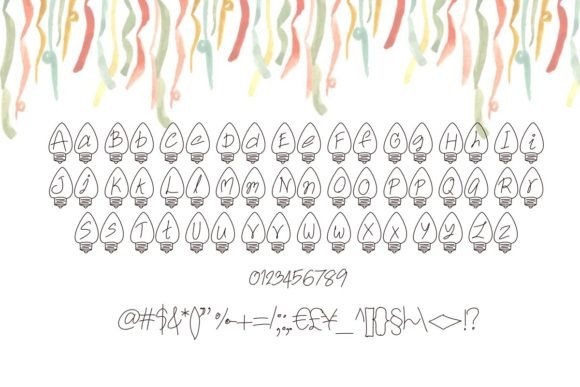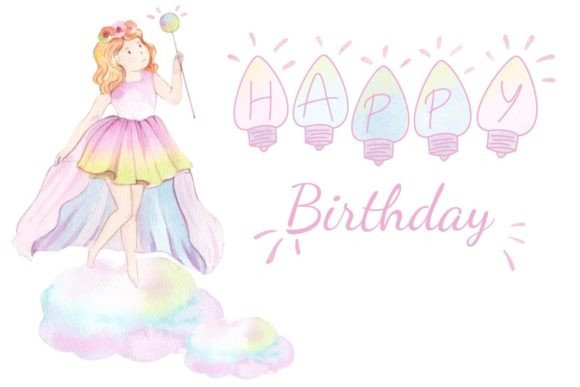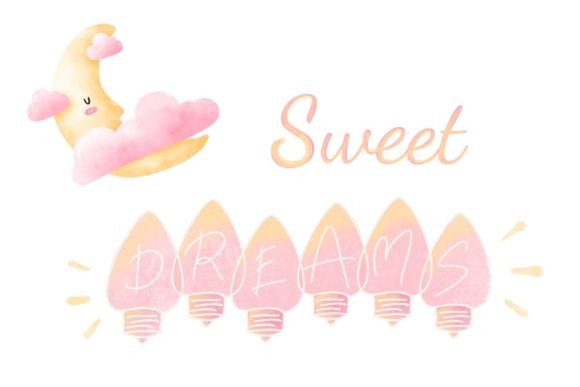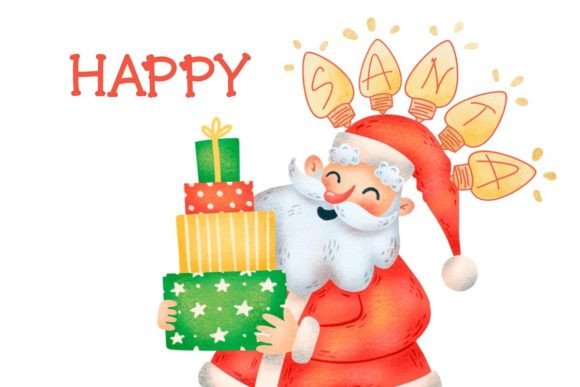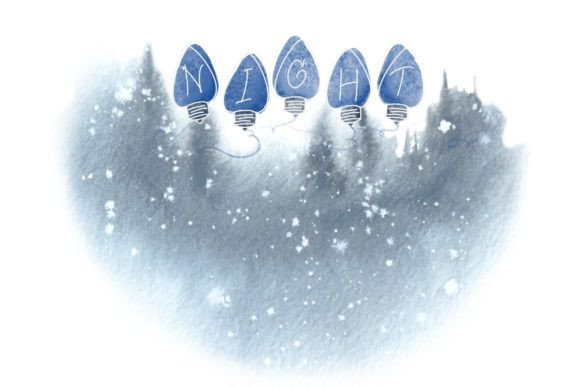
Illuminate Your Designs with Christmas Light Font
Are you looking for a font that adds a touch of festive magic to your designs? Look no further than the Christmas Light Font! This decorative font is perfect for creating visually stunning and engaging content for various creative projects. In this article, we’ll explore the features and benefits of Christmas Light Font and how it can elevate your designs.
What is Christmas Light Font?
Christmas Light Font is a unique and decorative font designed to bring a festive touch to your designs. Its playful and whimsical style makes it ideal for creating Christmas-themed content, but it’s also versatile enough to be used for other celebrations and designs throughout the year.
Features of Christmas Light Font
- Decorative and Festive: Christmas Light Font features a decorative and festive style that’s perfect for creating Christmas-themed designs, such as holiday cards, posters, and social media graphics.
- Versatile: This font is not limited to Christmas designs. Its playful and whimsical style makes it suitable for various creative projects, including wedding invitations, business cards, and children’s designs.
Use Cases for Christmas Light Font
Christmas Light Font is a versatile font that can be used for a wide range of creative projects, including:
- Logos and Branding: Add a festive touch to your logo and branding materials, such as business cards and letterheads.
- Wedding Invitations: Create beautiful and unique wedding invitations that set the tone for a festive and memorable celebration.
- Children’s Designs: Bring joy and excitement to children’s designs, such as coloring books, activity sheets, and educational materials.
- T-Shirts and Mugs: Create fun and festive designs for t-shirts, mugs, and other merchandise.
- Posters and Magazines: Add a touch of whimsy and playfulness to your posters, magazines, and other print materials.
- Social Media: Create engaging and festive social media graphics that stand out from the crowd.
- Planner Prints: Add a decorative touch to your planner prints, journals, and other stationery.
- Websites: Use Christmas Light Font to create festive and engaging website content, such as holiday-themed banners and graphics.
Benefits of Using Christmas Light Font
Using Christmas Light Font can bring several benefits to your designs, including:
- Unique and Festive Touch: Christmas Light Font adds a unique and festive touch to your designs, making them stand out from the crowd.
- Versatility: This font is versatile and can be used for various creative projects, making it a great addition to your font library.
- Easy to Read: Despite its decorative style, Christmas Light Font is easy to read, making it suitable for body text and headlines.
Tips for Using Christmas Light Font
Here are some tips for using Christmas Light Font effectively:
- Use it Sparingly: Use Christmas Light Font sparingly to avoid overwhelming your design. Use it for headings, titles, or accents to add a festive touch.
- Pair it with Other Fonts: Pair Christmas Light Font with other fonts to create a unique and visually appealing combination.
- Experiment with Colors: Experiment with different colors to find the perfect combination that matches your brand or design.
Christmas Light Font is a versatile and decorative font that’s perfect for adding a festive touch to your designs. Its unique and playful style makes it suitable for various creative projects, from logos and branding to children’s designs and social media graphics. With its ease of use and versatility, Christmas Light Font is a great addition to any designer’s font library. So why not give it a try and see how it can illuminate your designs?